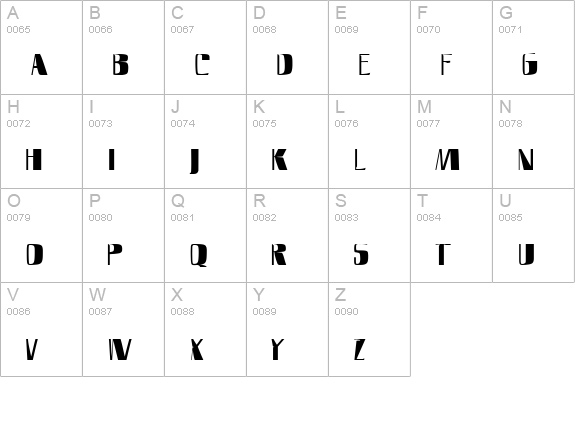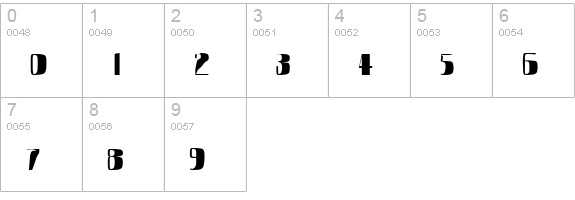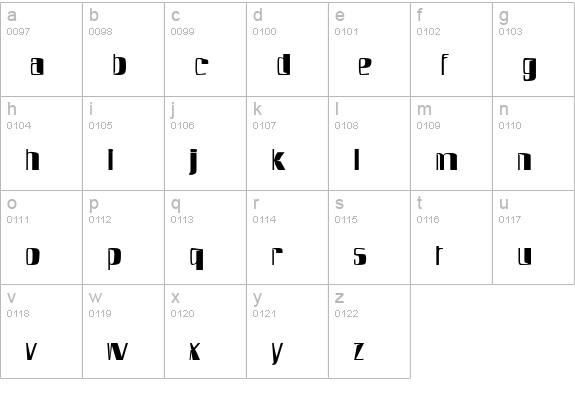
SlimFast AH Font Details
Introducing SlimFast AH, the epitome of sleek and stylish typography. This modern and versatile font is perfect for adding a touch of sophistication to any design project. With its clean lines and elegant curves, SlimFast AH exudes a sense of contemporary refinement that is sure to captivate the eye. But what sets SlimFast AH apart from the rest? Well, not only does it possess a stunning aesthetic appeal, but it also offers the incredible advantage of being free! That's right, this exceptional font is freely available to download at FontsMarket.com, allowing you to effortlessly elevate your designs without breaking the bank. Whether you're creating a logo, designing a website, or crafting a branding campaign, SlimFast AH is the ideal choice for any creative endeavor. Its bold and assertive presence demands attention, while its subtle nuances add depth and character to your text. Crafted with meticulous attention to detail, SlimFast AH ensures optimal legibility, even at smaller sizes. Its versatility allows it to seamlessly adapt to any design concept, making it the go-to font for designers and creatives alike. So why wait? Enhance your projects with the timeless elegance of SlimFast AH, the font that combines contemporary sophistication with the unbeatable advantage of being freely accessible. Download it now at FontsMarket.com and unlock a world of unlimited creative possibilities.